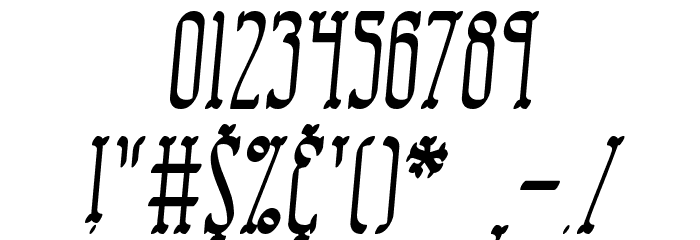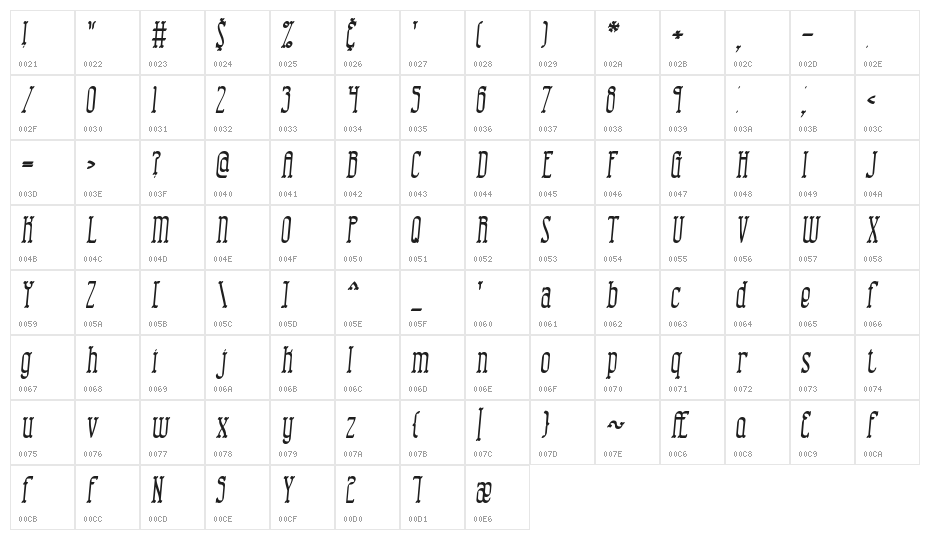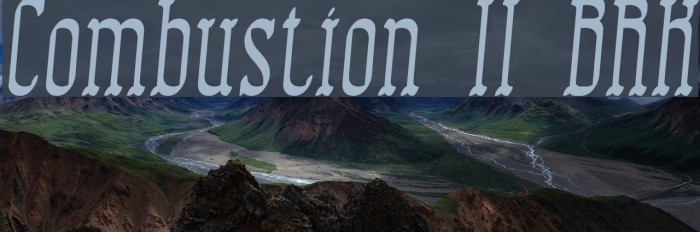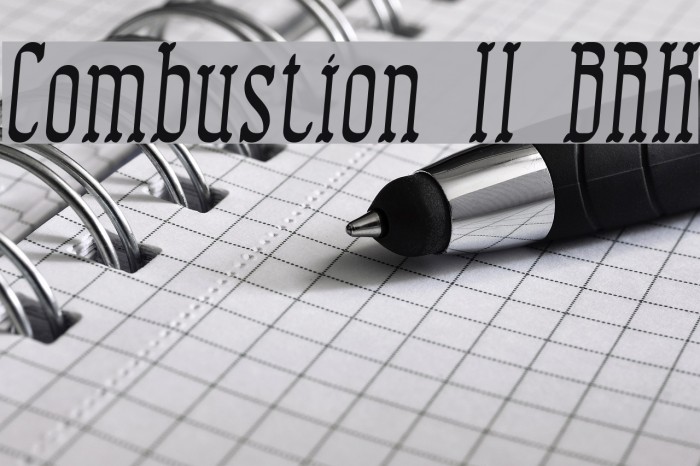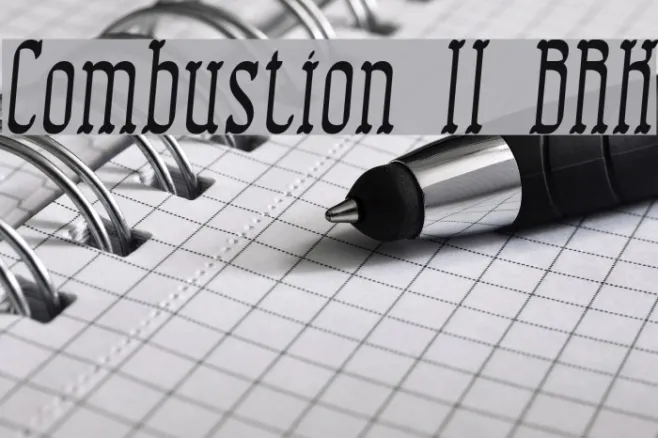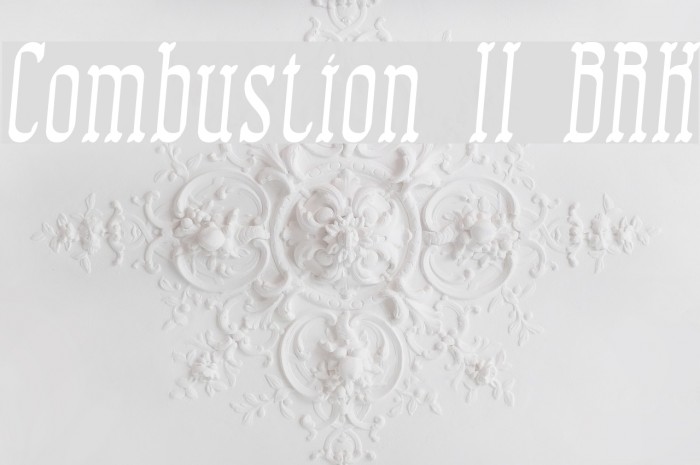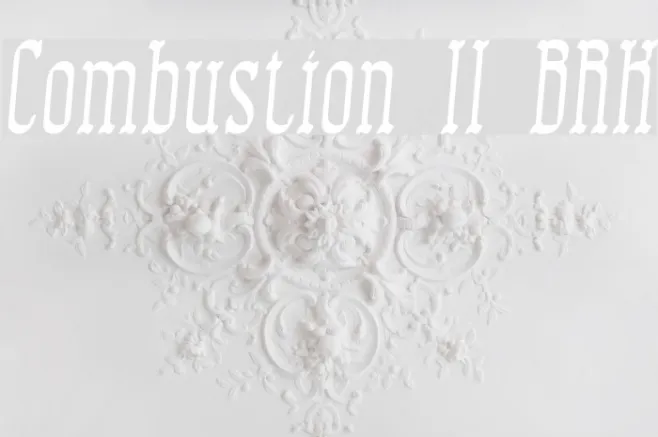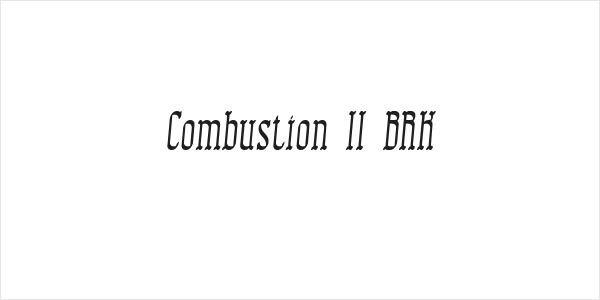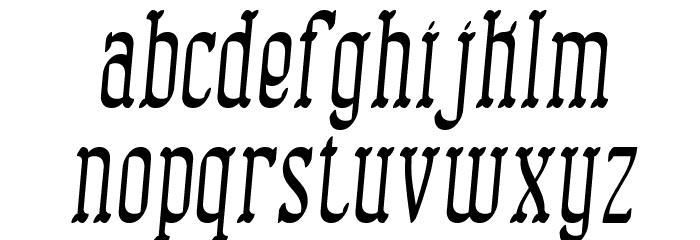
Combustion II BRK Font
Combustion II BRK Description
This font features a distinctive and bold design with a unique, slightly condensed structure. The characters are elongated with sharp, angular serifs that give it a dynamic and energetic appearance. The uppercase letters are tall and commanding, while the lowercase letters maintain a consistent style with a slightly more compact form. The numerals are clear and legible, matching the overall boldness of the alphabet. Special characters are creatively designed, adding to the font's decorative appeal. The font's style is reminiscent of vintage or retro aesthetics, making it suitable for projects that require a strong visual impact.
| Proposed Projects | Ideal for posters, logos, branding projects, and any design requiring a bold, vintage look. |